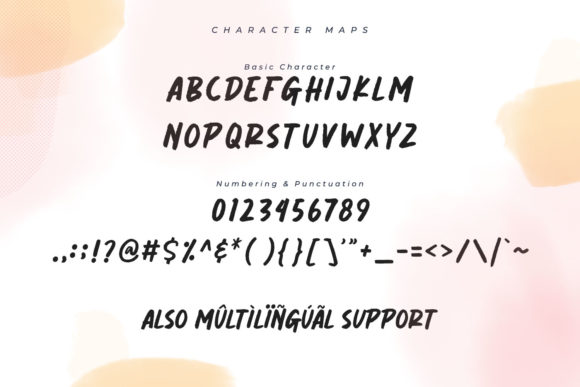
Introducing Chalk Brush Font: The Ultimate Display Font for Creative Designs
The world of typography is vast and diverse, with numerous fonts catering to different design needs. Among these, the Chalk Brush Font stands out for its unique, chunky, and lettered display style. This font is not just a simple typeface but a design element that can elevate your creative projects to new heights. In this article, we’ll delve into the features, benefits, and uses of the Chalk Brush Font, exploring how it can add a touch of personality and flair to your designs.
What is Chalk Brush Font?
Chalk Brush Font is a distinctive typeface that mimics the look of hand-drawn chalk letters. It’s characterized by its chunky strokes, irregular edges, and a friendly demeanor that makes it approachable and engaging. This font is perfect for designers looking to add a personal touch to their work, making it suitable for a wide range of projects, from branding and advertising to packaging and digital media.
Why Choose Chalk Brush Font?
There are several reasons why Chalk Brush Font should be your go-to choice for your next design project:
- Uniqueness: In a sea of generic fonts, Chalk Brush Font offers a breath of fresh air with its distinctive style that can set your designs apart.
- Versatility: Despite its unique look, this font is incredibly versatile and can be used in various design contexts, from playful and casual to more sophisticated and elegant.
- Readability: The chunky strokes of Chalk Brush Font ensure that your text remains readable even at smaller sizes, making it perfect for use in both headings and body text.
- Emotional Connection: The friendly and approachable nature of this font helps create an emotional connection with your audience, making your designs more engaging and memorable.
Design Applications of Chalk Brush Font
The versatility of Chalk Brush Font makes it suitable for a wide range of design applications:
- Branding and Logo Design: Use Chalk Brush Font to create memorable logos and brand identities that stand out.
- Advertising and Marketing Materials: Add a touch of personality to your ads, flyers, and brochures with this eye-catching font.
- Packaging Design: Make your product packaging more appealing and distinctive with Chalk Brush Font.
- Digital Media: Use this font in your social media graphics, website headers, and email newsletters to create a friendly and engaging online presence.
Tips for Using Chalk Brush Font Effectively
To get the most out of Chalk Brush Font, consider the following tips:
- Mix and Match: Combine Chalk Brush Font with other fonts to create visual interest and hierarchy in your designs.
- Play with Colors: Experiment with different colors to find the perfect match that enhances the friendly and approachable nature of the font.
- Adjust Size and Weight: Don’t be afraid to adjust the size and weight of the font to suit different design elements and create emphasis.
- Consider Context: Ensure that the font aligns with the tone and message of your design to maintain consistency and coherence.
Chalk Brush Font is more than just a typeface; it’s a design tool that can bring your creative ideas to life. Its unique, chunky, and friendly style makes it an excellent choice for a wide range of design projects. By incorporating Chalk Brush Font into your designs, you can add a touch of personality, create an emotional connection with your audience, and make your work stand out in a crowded design landscape.